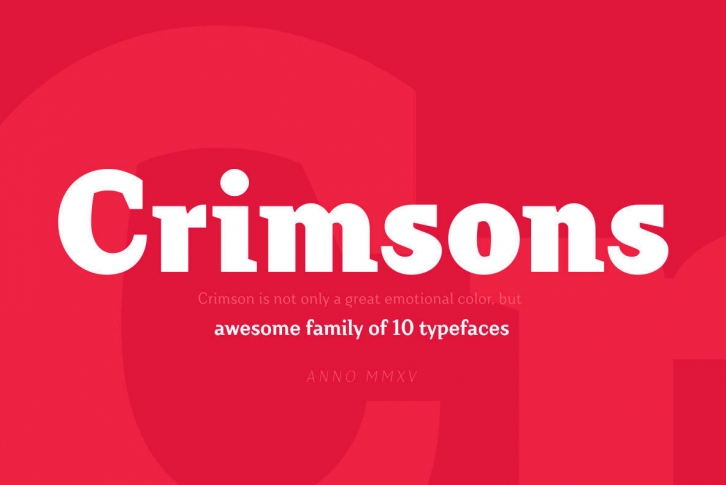
Crimsons is unique and very unusual font family. It combines modern grotesque, medieval motifs and serif proportions. These typefaces will be a useful part of a designer collection. Crimsons is ideal for short and emotional inscriptions. Titles, names, logotypes — this is his element.